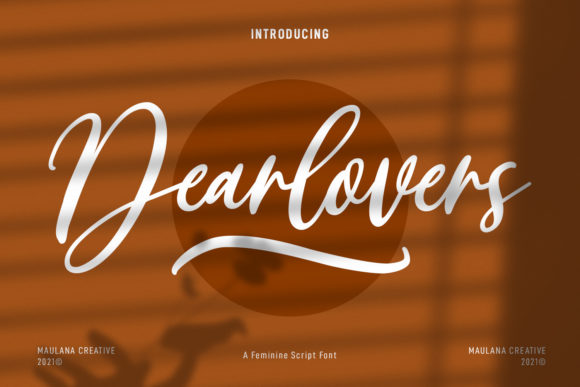
Behold, Dearlovers Font, an entrancing script font that will ignite your creativity with its captivating charm. Let its delicate strokes dance across your designs, leaving a trail of elegance and wonder.
Picture this: Your wedding invitations, adorned with the graceful curves of Dearlovers Font, carrying the promise of a love story unfolding. Its whimsical essence adds a touch of magic, making each word a heartfelt expression of your affection.
But Dearlovers Font isn't just for heartfelt moments. Its versatility extends beyond weddings, gracing invitations, cards, and any design that yearns for a touch of romance and personalization. Let your imagination soar as you discover endless possibilities with this enchanting font.
And here's a secret: Dearlovers Font holds a special power. It's the perfect choice for creating electronic signatures that radiate both professionalism and a hint of playful charm. Your emails will transform into works of art, leaving a lasting impression on clients and colleagues alike.
With Dearlovers Font at your fingertips, you unlock a world of creative freedom and endless possibilities. Its delicate strokes will inspire you to create designs that resonate with both elegance and whimsy.
So, dear lover of fonts, embrace the allure of Dearlovers Font today. Let it ignite your creativity, captivate your audience, and leave a lasting impression on the world.